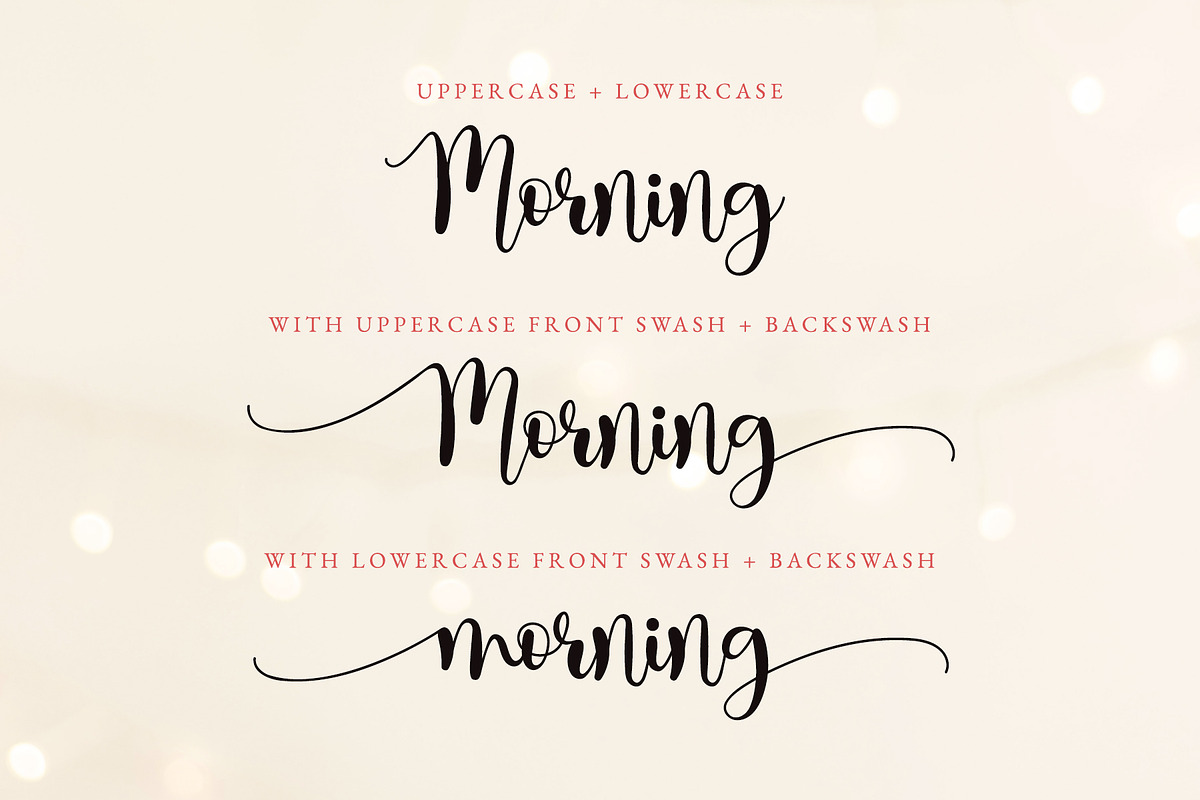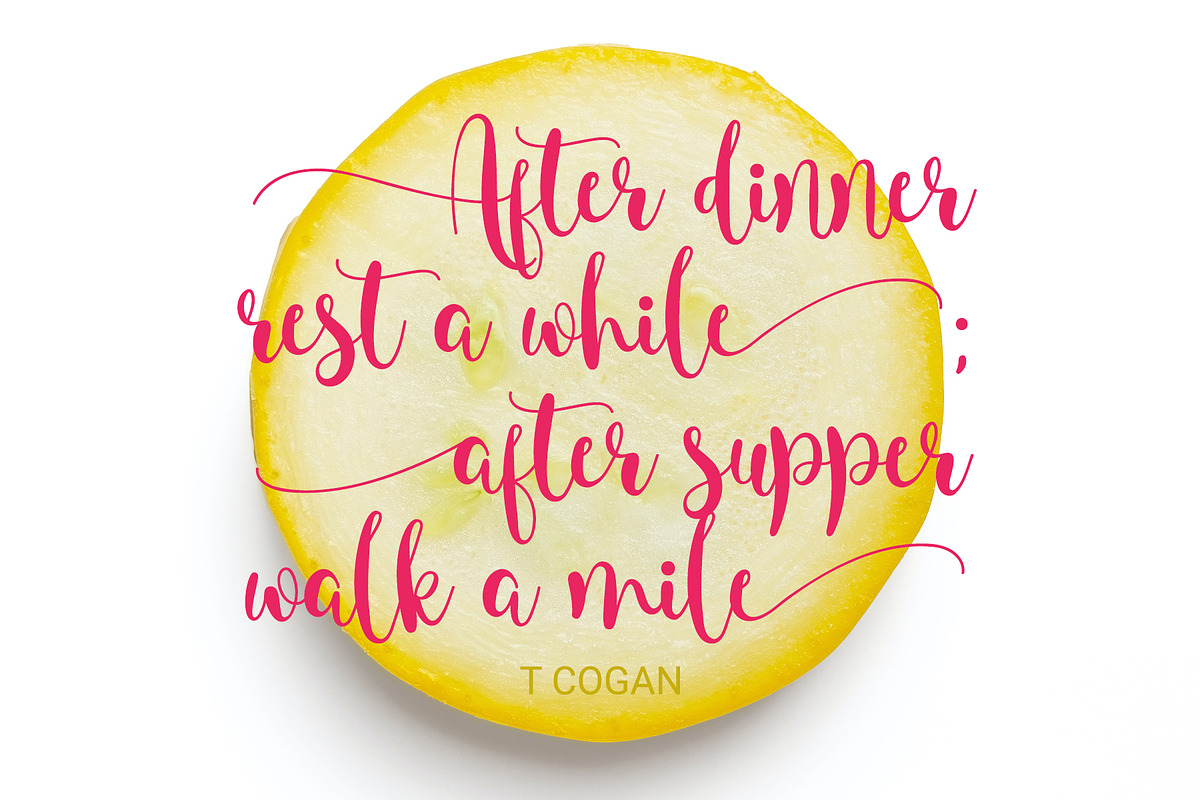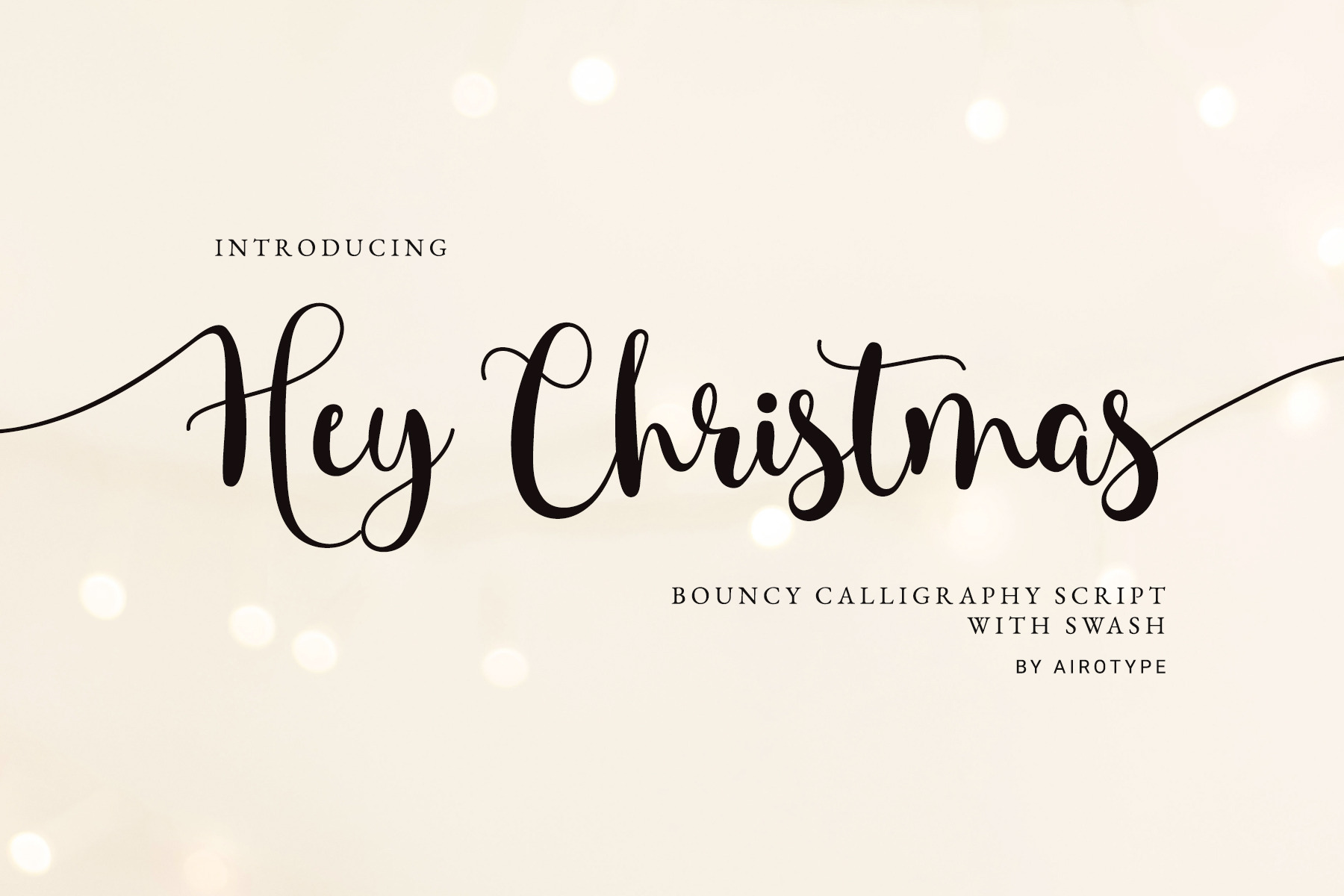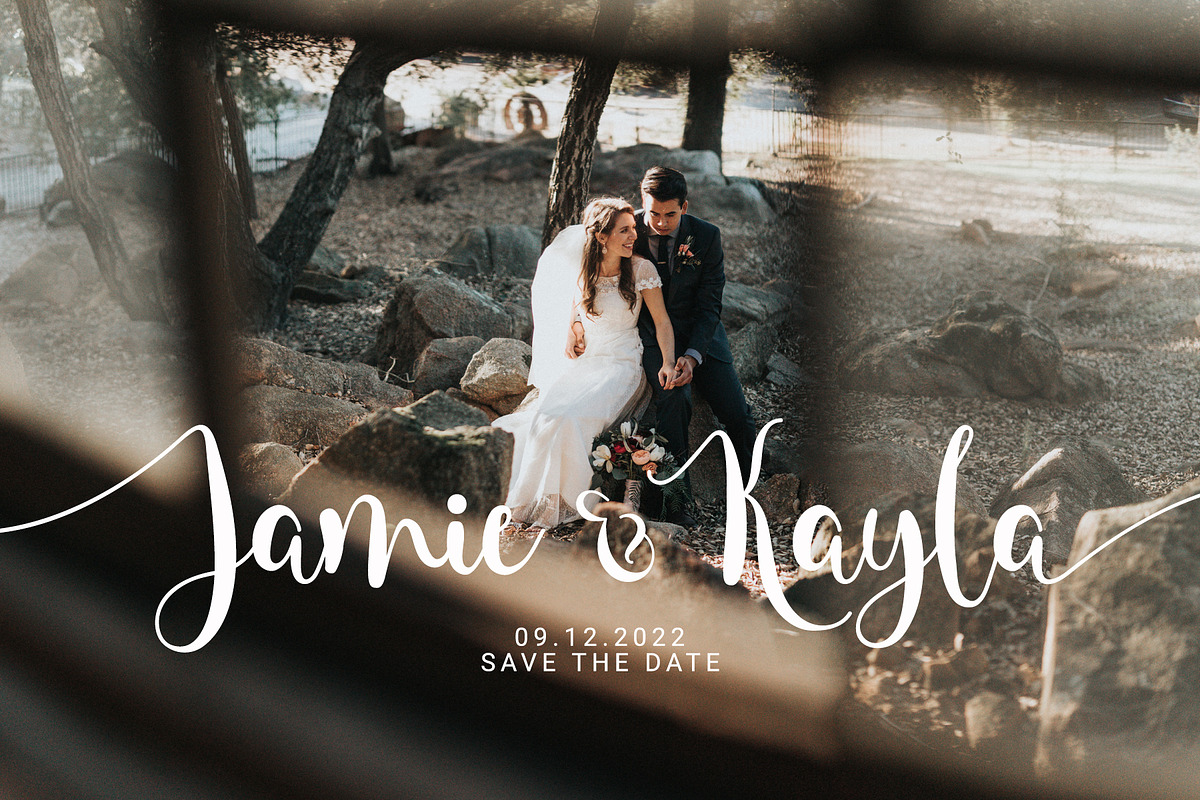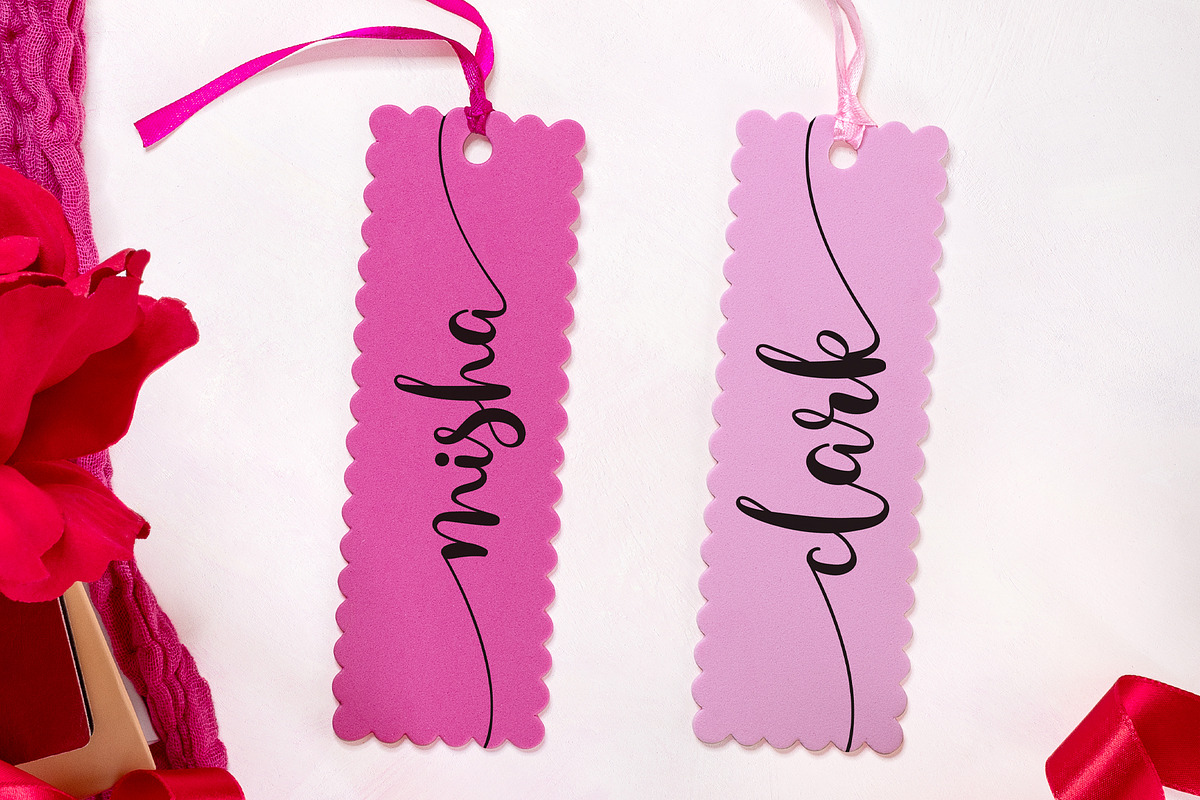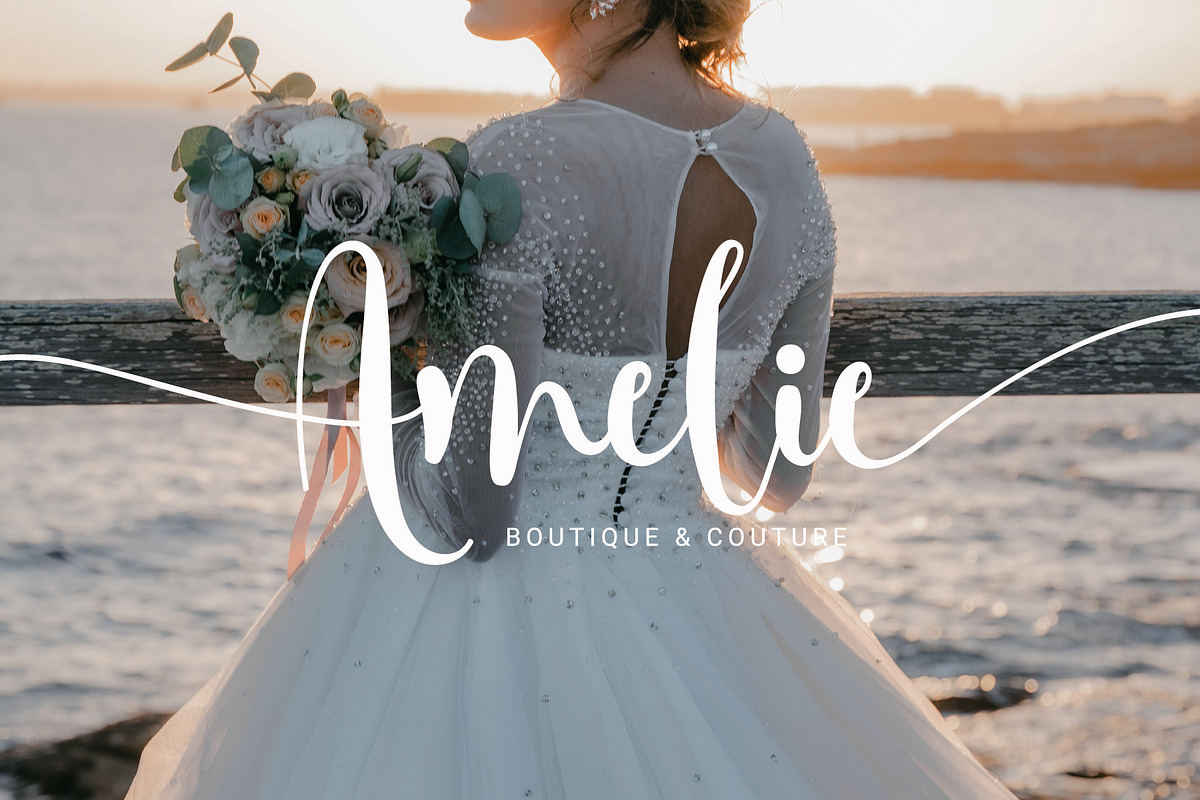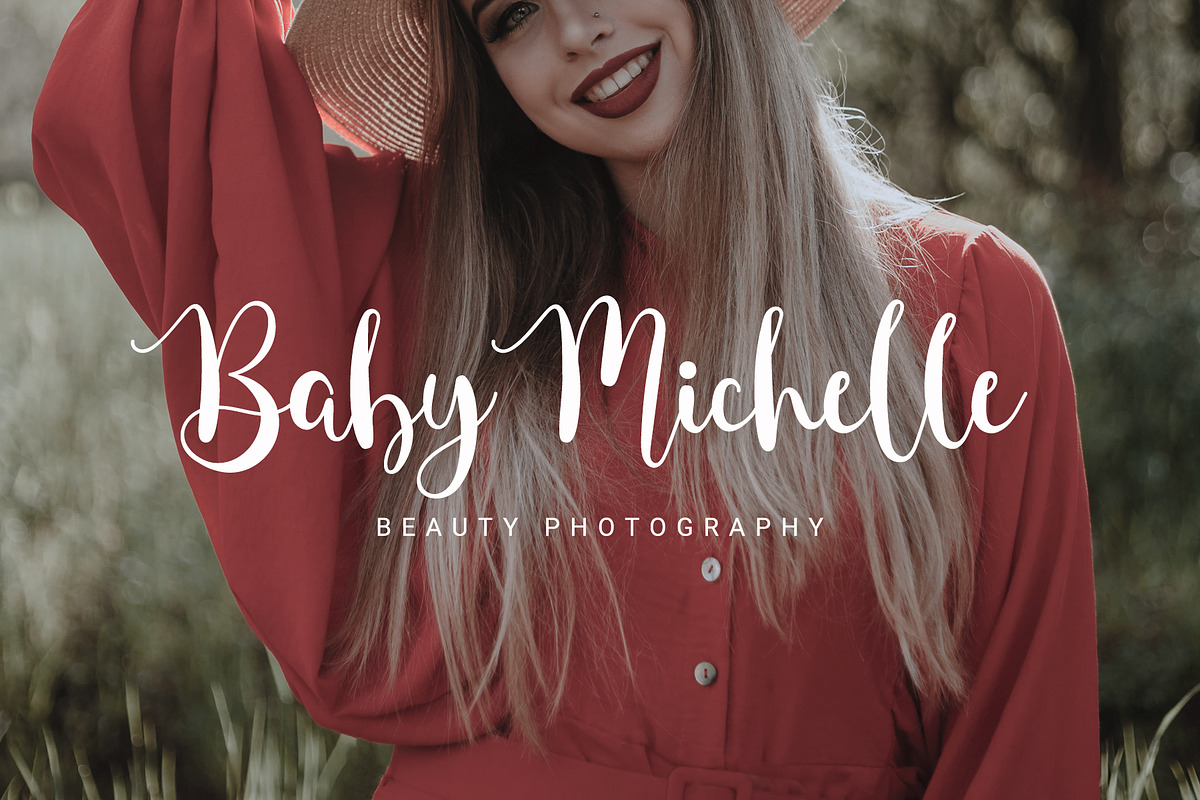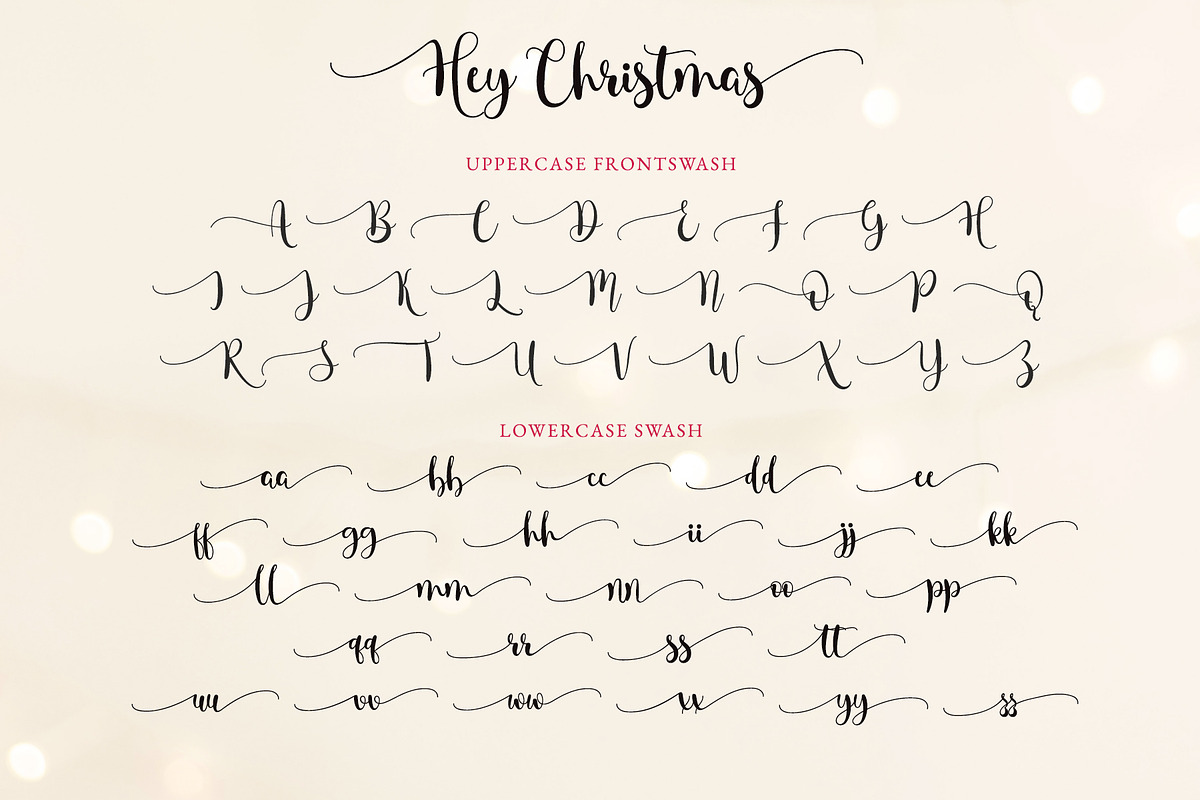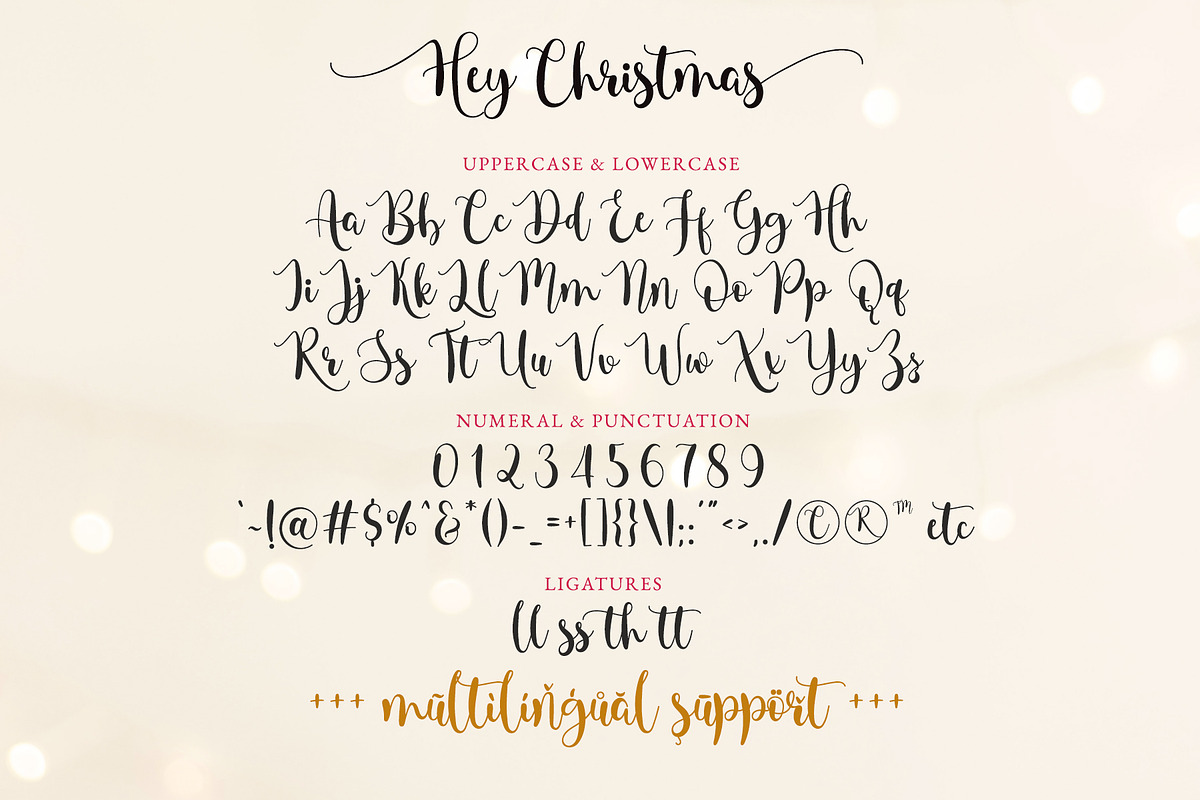
Hey Christmas - Font with Tail
Hey Christmas is tiny and bouncy script font. This is playful and elegant in the same time.
Hey Christmas is perfect font for any design projects, such as wedding invitation, birthday, t-shirt design, crafting, sticker, sublimation, and many more.
- Uppercase & Lowercase (include PUA-Encoded extra glyphs)
- Most Multilingual Accent